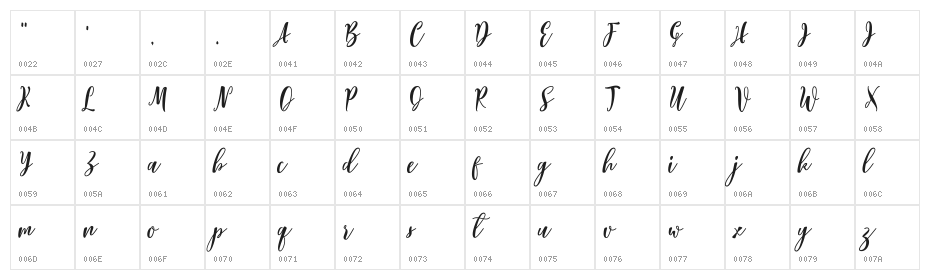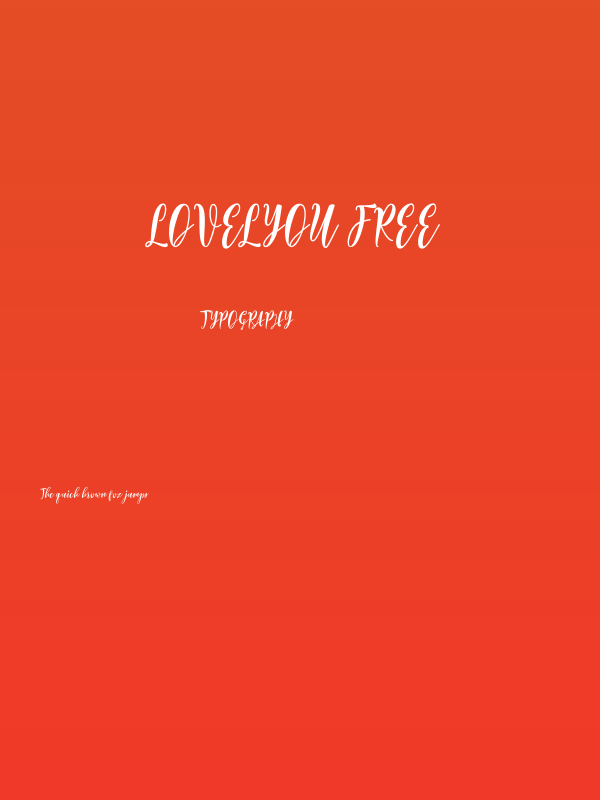
Lovelyou free Font
Lovelyou free Description
This font exudes elegance and sophistication with its flowing, cursive style. The characters are intricately designed, featuring graceful loops and swashes that give it a handwritten feel. The uppercase letters are bold and prominent, while the lowercase letters maintain a consistent flow, making it ideal for creating a romantic or whimsical atmosphere. The font's overall appearance is both classic and modern, suitable for a variety of creative projects. Its artistic flair is perfect for invitations, greeting cards, and branding that requires a personal touch.
| Overall Style | Elegant, Romantic |
| Use Case | Headlines, Invitations, Decorative text |
| Proposed Projects | Ideal for wedding invitations, greeting cards, branding, and decorative projects. |